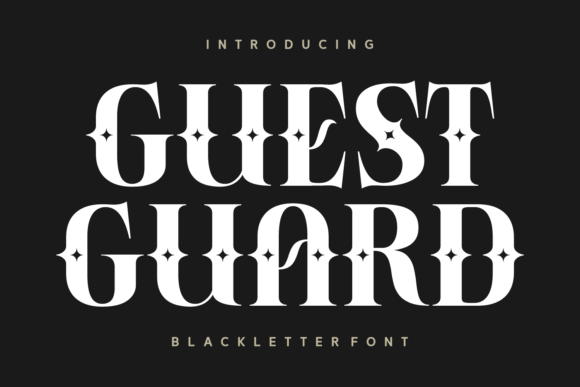
Introduction to Guest Guard Font
A promotional image for β€œGuest Guard,” a blackletter font.
The font is distinguished by its unique, decorative star-like sparkles integrated within the letterforms, giving it a magical and elegant feel This style is perfectly suited for the fantasy and mystical themes of the early autumn season.
Key Features of Guest Guard Font